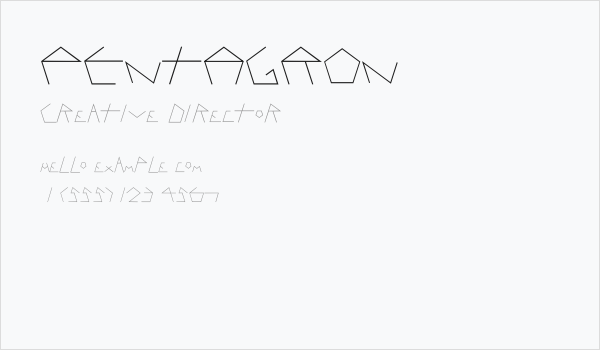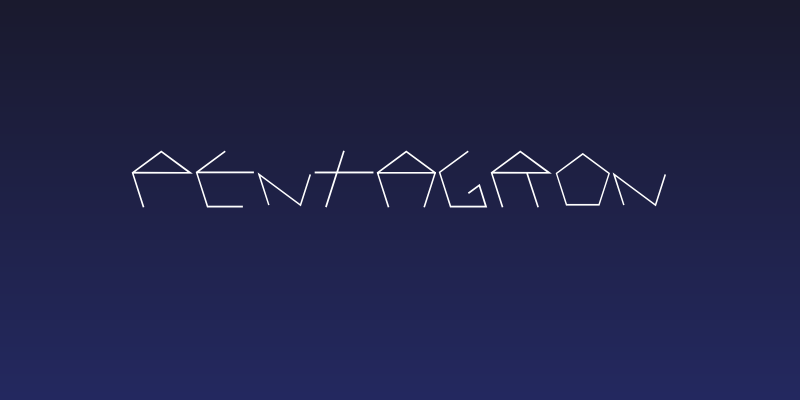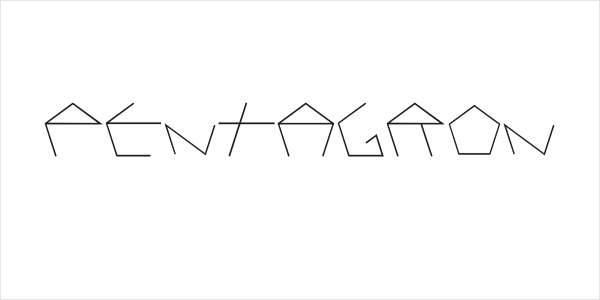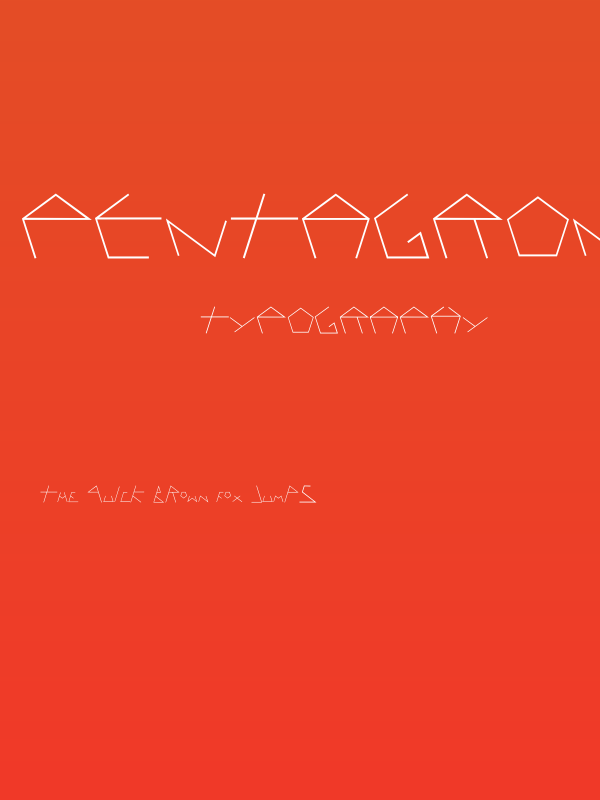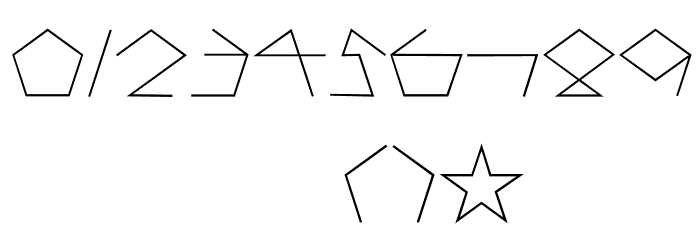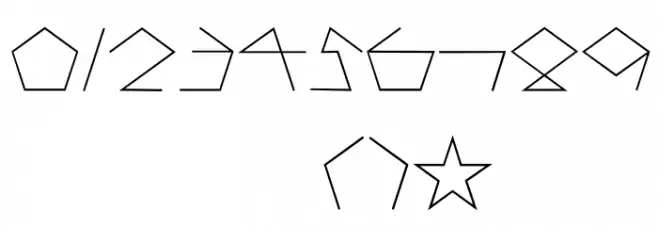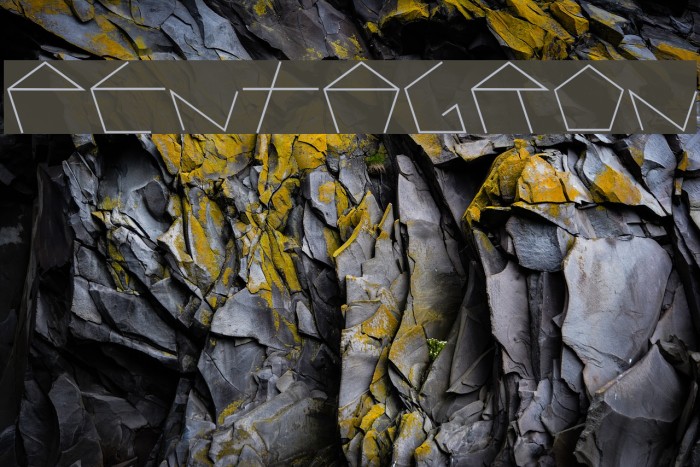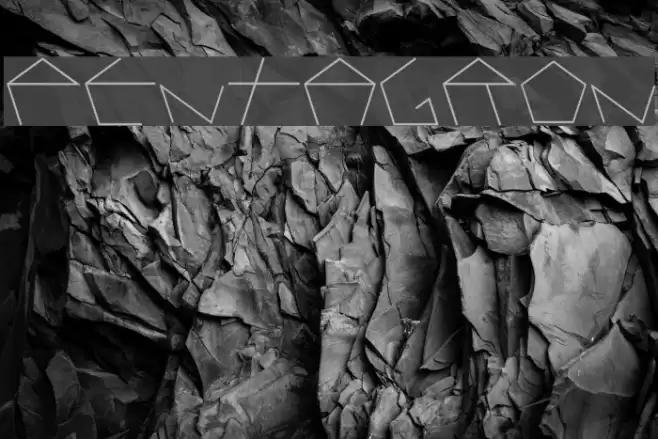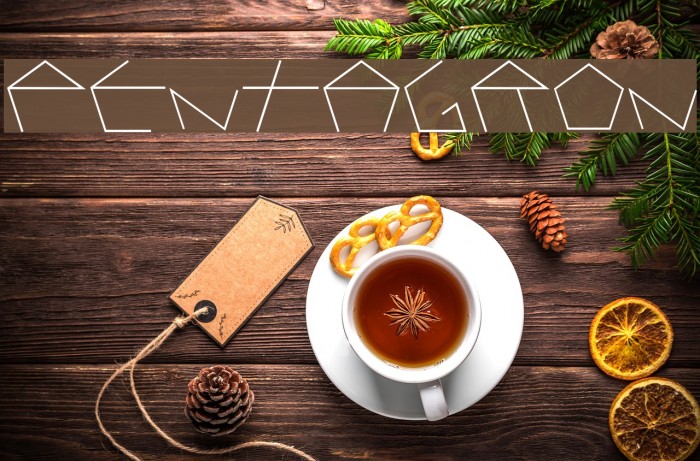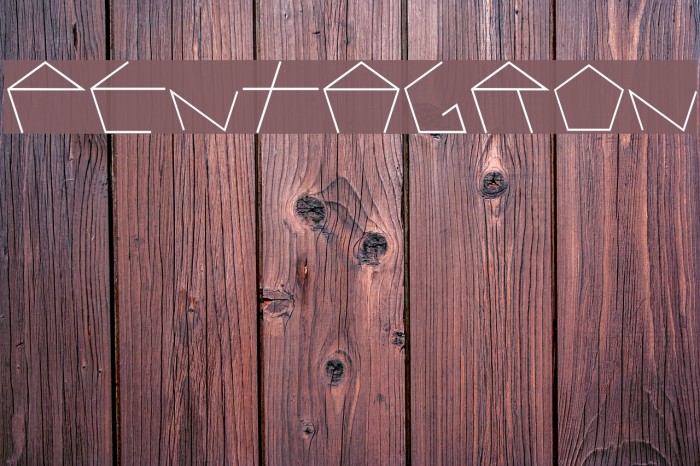
PENTAGRON Font
PENTAGRON Description
This font features a unique, geometric style with angular lines and sharp edges, reminiscent of abstract polygonal shapes. The characters are constructed with straight lines, giving them a modern and edgy appearance. Each letter and number is distinct, with a consistent use of angles and line thickness throughout. The font's design is minimalistic yet striking, making it suitable for creative and artistic projects. Its unconventional structure sets it apart from traditional fonts, offering a fresh and innovative look.
| Use Case | Logos, Headlines, Posters |
| Proposed Projects | Ideal for modern art projects, tech branding, futuristic designs, and creative posters. |